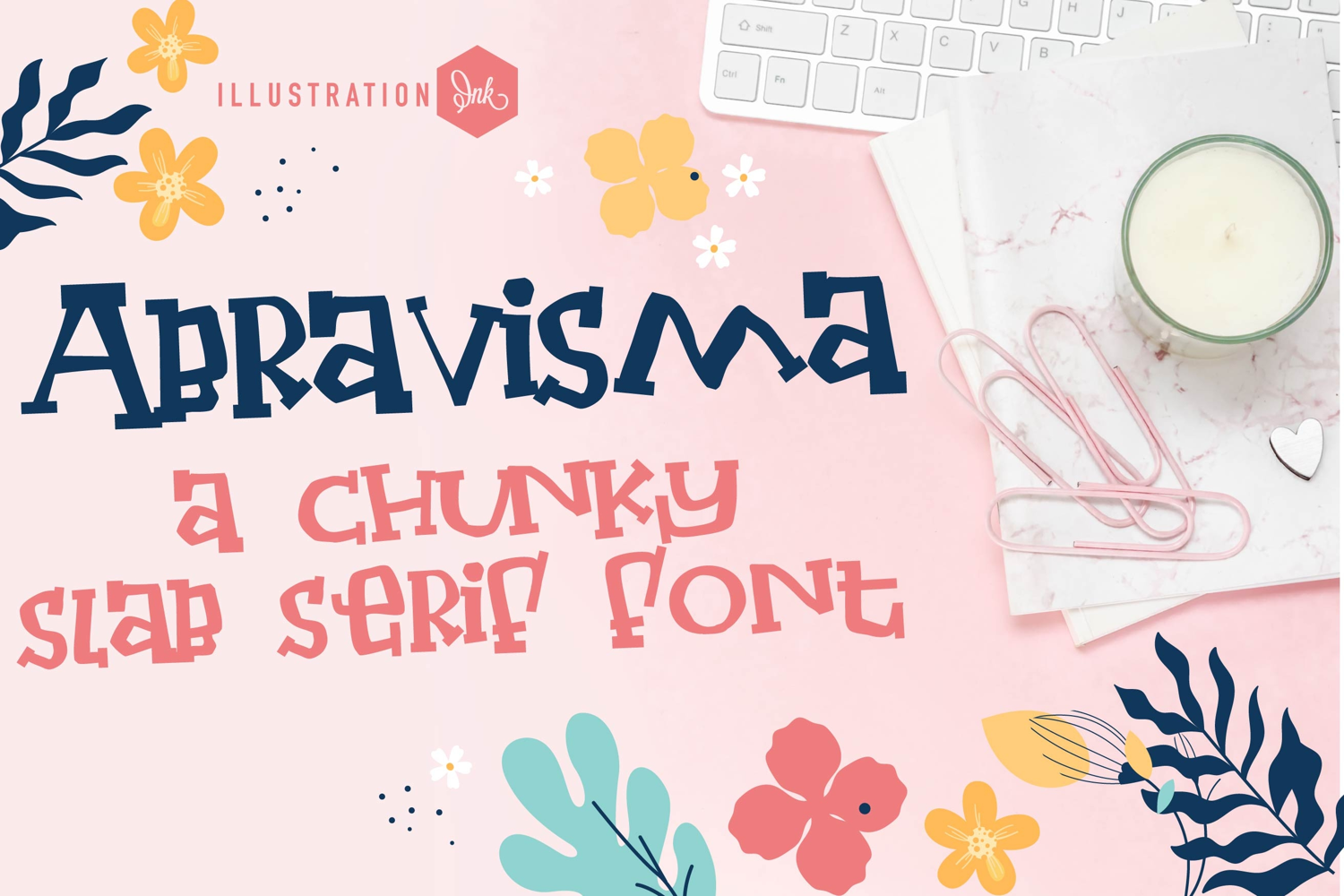
This hand-crafted font is a crafty slab serif with lots of angular lines.
• The letters are not perfectly uniform in size or shape.
• There may be slight variations in the spacing between letters and words.
• The font may have a "wiggly" or "squiggly" appearance.
• The font may be difficult to read at small sizes.